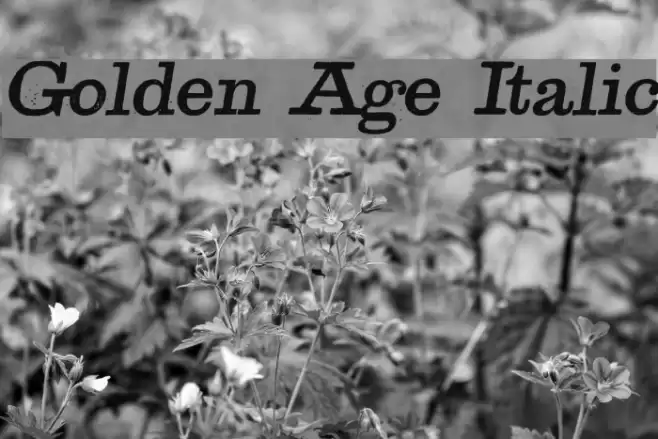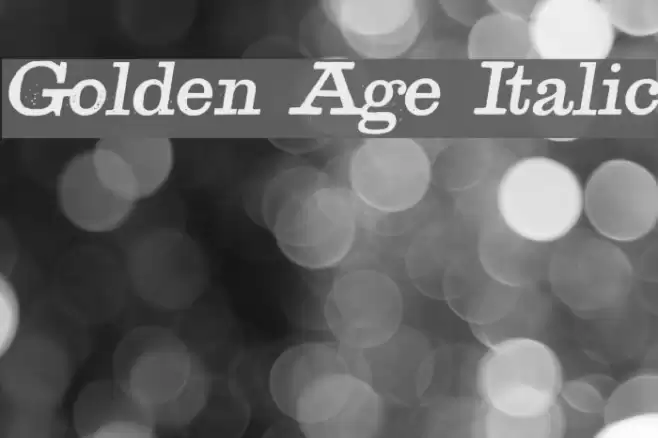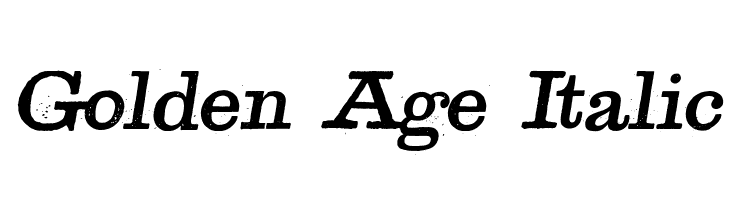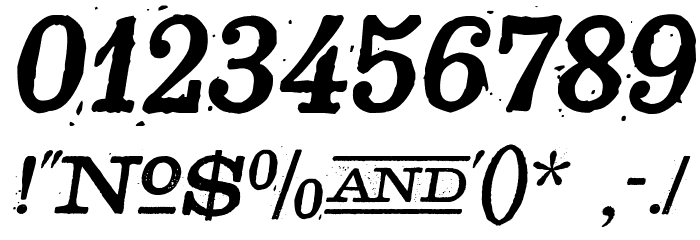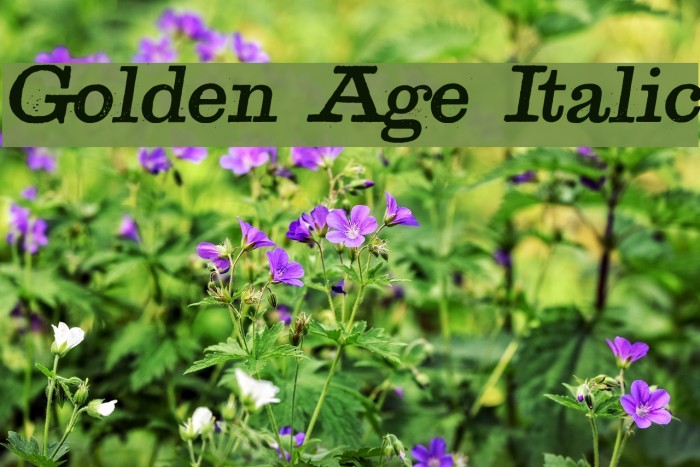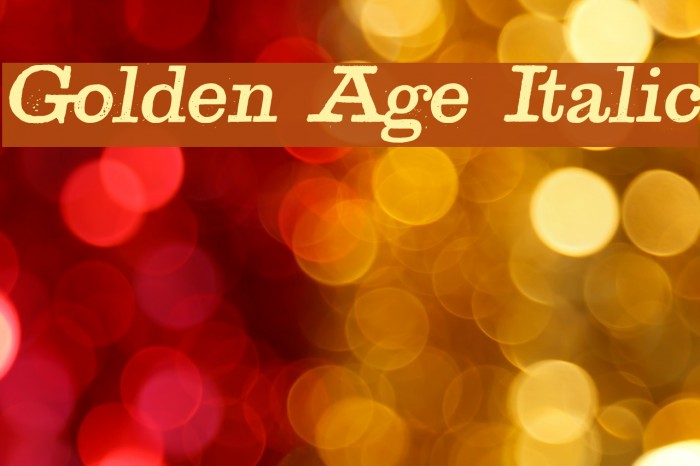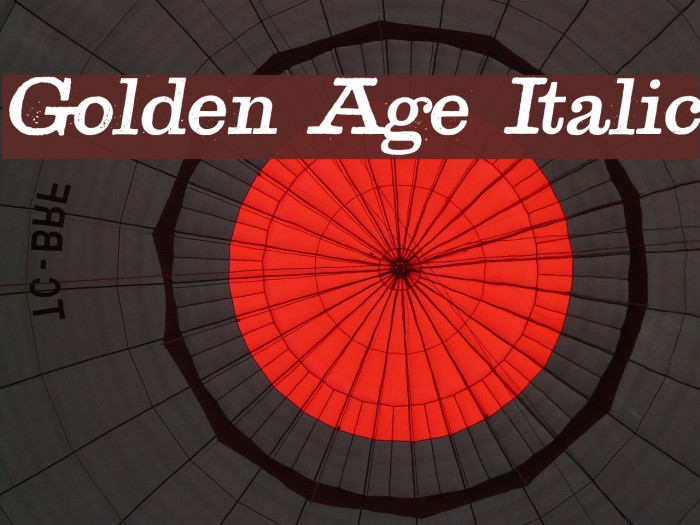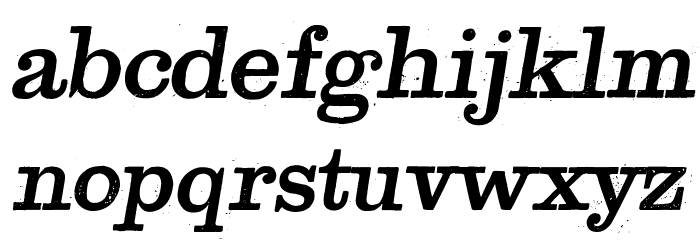
Golden Age Italic Font
Golden Age Italic Description
This font features a classic serif style with a distinct italic slant, giving it an elegant and sophisticated appearance. The characters are well-defined with moderate stroke contrast, which enhances readability while maintaining a stylish look. The serifs are pronounced, adding a touch of traditional flair, yet the overall design feels modern and versatile. The uppercase letters are bold and commanding, while the lowercase letters maintain a balanced and harmonious flow. Numerals are clear and consistent, making them suitable for various applications. Special characters are thoughtfully designed, ensuring they integrate seamlessly with the rest of the font.
An elegant serif font with a classic italic slant and moderate stroke contrast from Distorted Eroded fonts.
- Proposed Projects: Ideal for use in editorial design, book covers, branding projects, and formal invitations.
- Overall Style: Classic